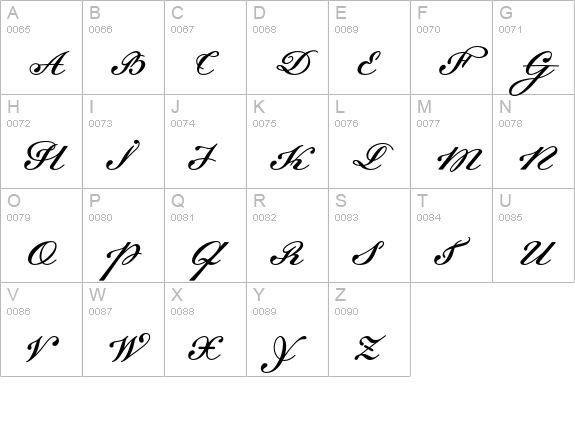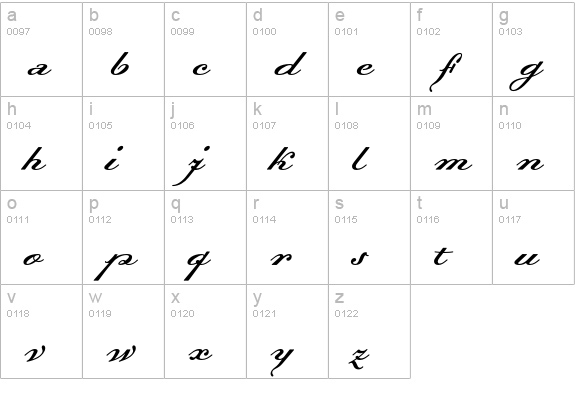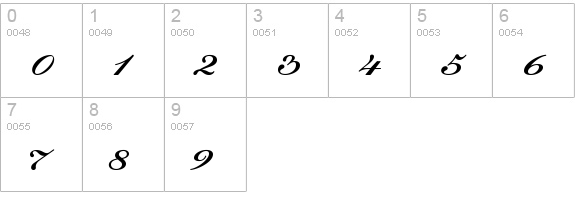
DallianceScript Font Details
Introducing DallianceScript, a stunningly elegant and versatile font that is sure to capture hearts and minds with its graceful curves and sophisticated charm. This script font effortlessly merges classic calligraphy with a modern twist, making it perfect for a wide range of creative projects. With its fluid strokes and beautifully balanced letterforms, DallianceScript exudes a sense of refinement and grace that is truly captivating. Whether used for wedding invitations, branding projects, or elegant typography designs, this font adds a touch of timeless beauty to any piece of artwork. What sets DallianceScript apart is not just its exquisite design, but also its accessibility. This font is freely available to download at FontsMarket.com, allowing designers, artists, and enthusiasts alike to add a touch of elegance to their creations without any limitations. The creators of DallianceScript understand the importance of providing a high-quality font that can be freely enjoyed by all, and they have made it easily accessible for anyone seeking to elevate their design projects to new heights. Downloading DallianceScript is a breeze, and once you have it in your collection, you'll find yourself reaching for it time and time again. Its versatility shines through as it seamlessly adapts to various design styles, whether you're aiming for a classic, sophisticated look or a more contemporary and edgy vibe. With its wide range of international language support, DallianceScript ensures that your message can be beautifully conveyed to a global audience. Its legibility and attention to detail make it a font that is not only visually stunning but also highly functional. So, if you're in search of a font that effortlessly combines elegance, versatility, and accessibility, look no further than DallianceScript. Download this exquisite font for free at FontsMarket.com and unlock a world of creative possibilities. Let DallianceScript be the secret weapon in your design arsenal, adding a touch of refined beauty to every project you embark upon.